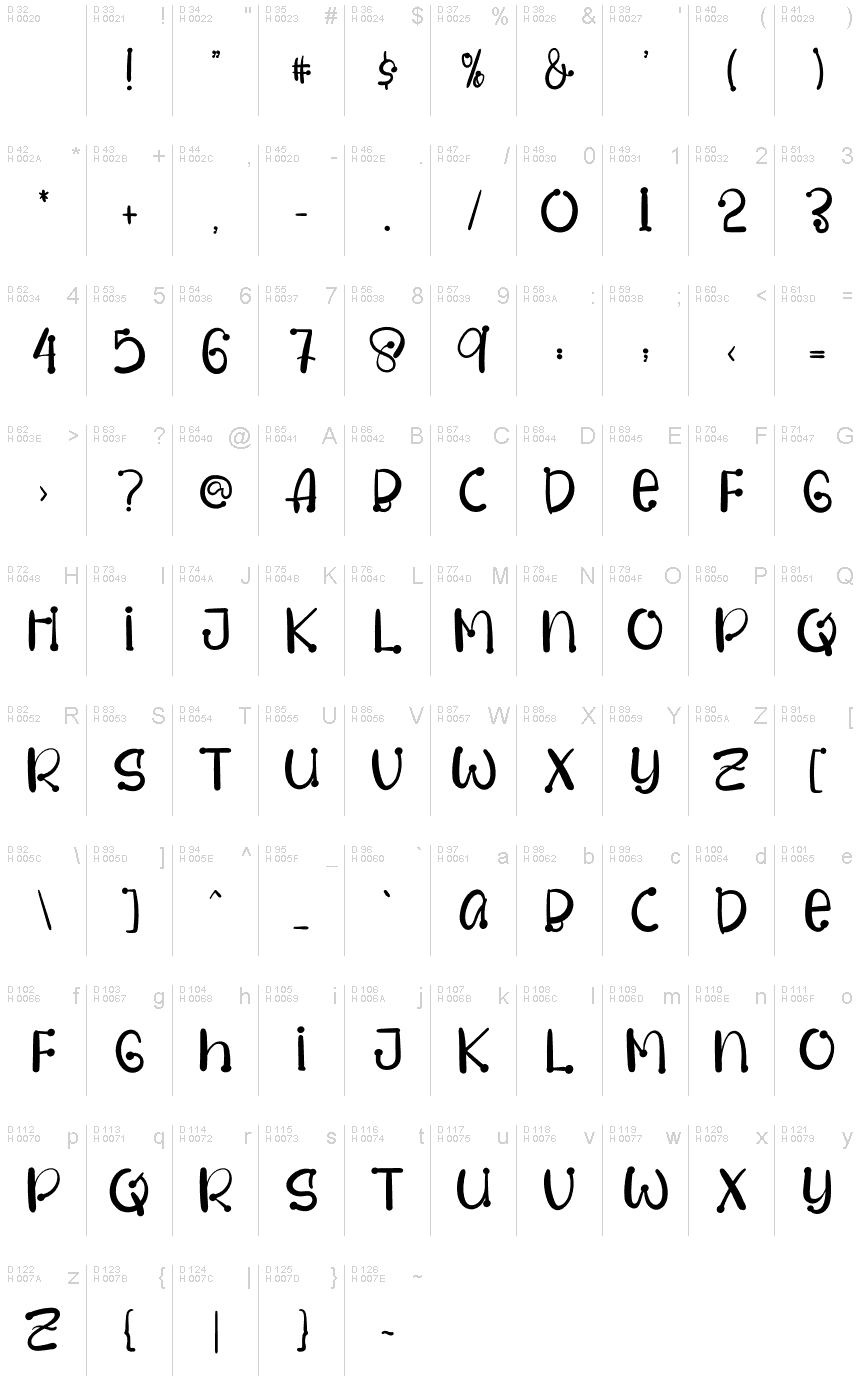
Dream Moment
Dream Moment, a vibrant and fun display font designed by K_IN Studio, is perfect for projects that require a playful touch. Its semi-light weight and cartoon style make it suitable for a variety of design needs such as children's book covers, greeting cards, posters, and even animated videos. With its unique and eye-catching design, Dream Moment is sure to add a touch of whimsy to any project. Use it to bring your creative vision to life and grab the attention of your audience with this joyful typeface.